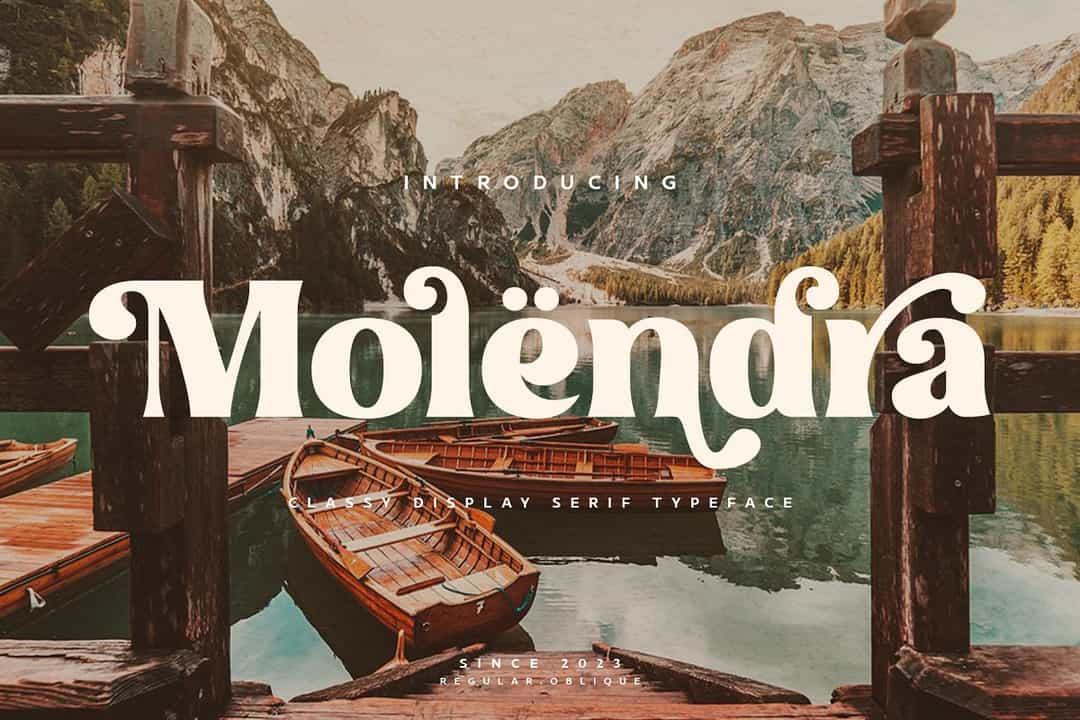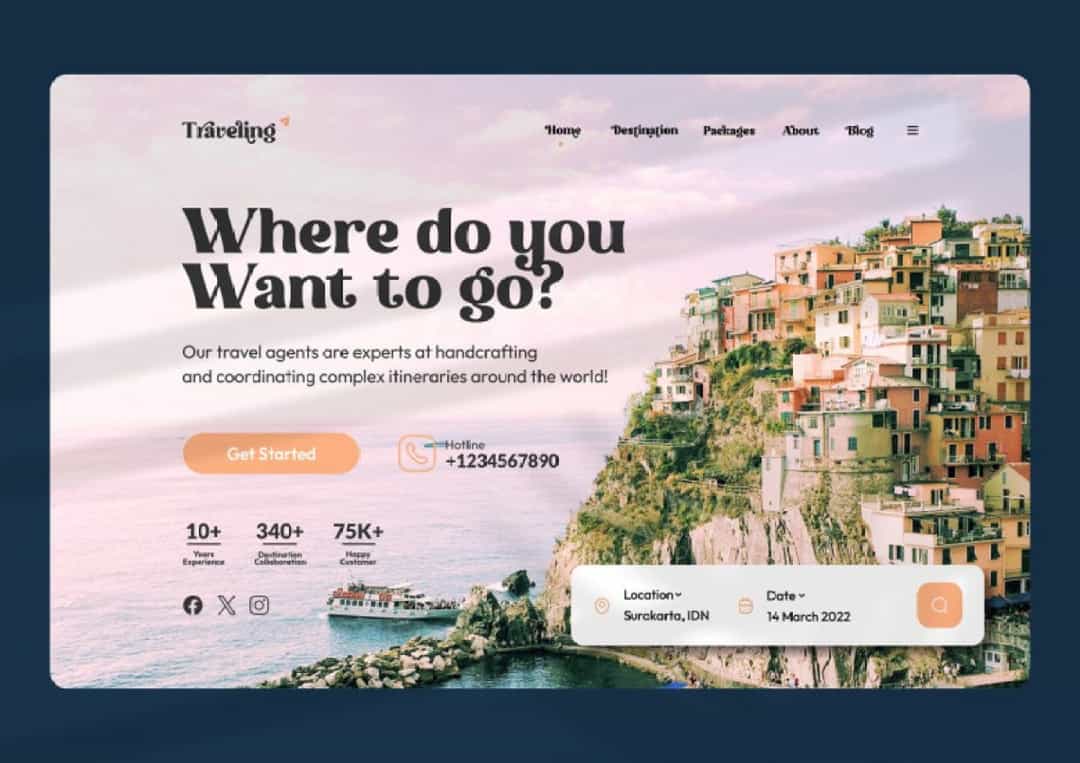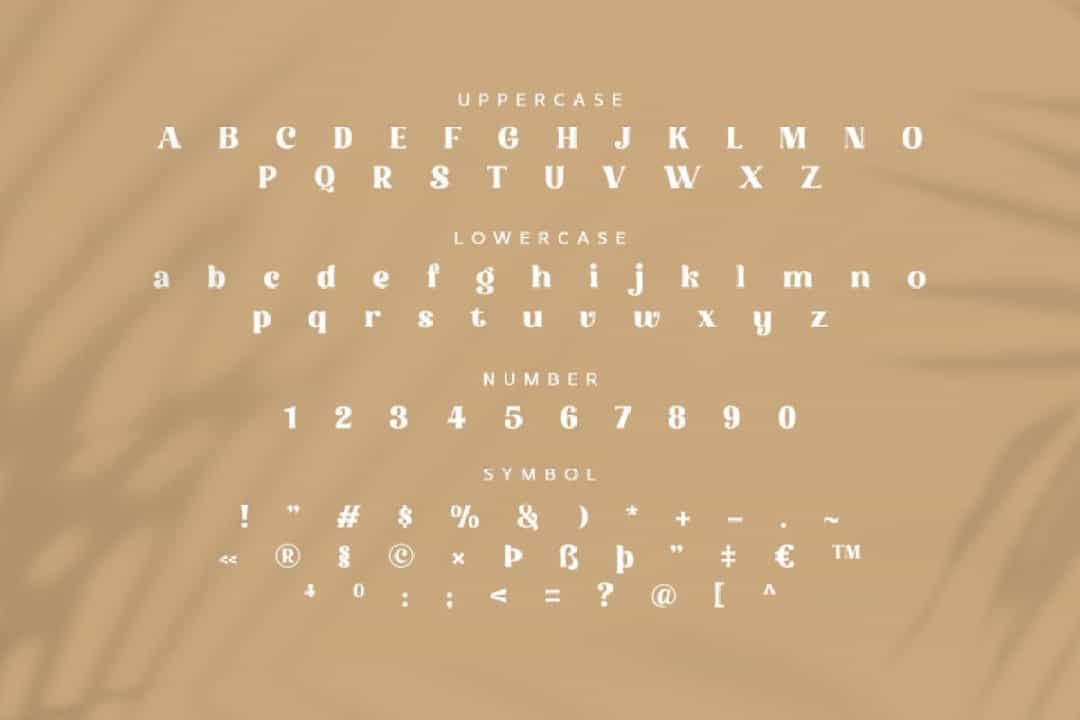
Molendra is a versatile display serif font boasting over 270 characters – uppercase and lowercase letters, multilingual alternative characters and the most commonly used other symbols. Ideal for logo design as well as postings to social media, product packaging design and product designs and many more projects, Molendra makes an impressionful first impression wherever it goes.